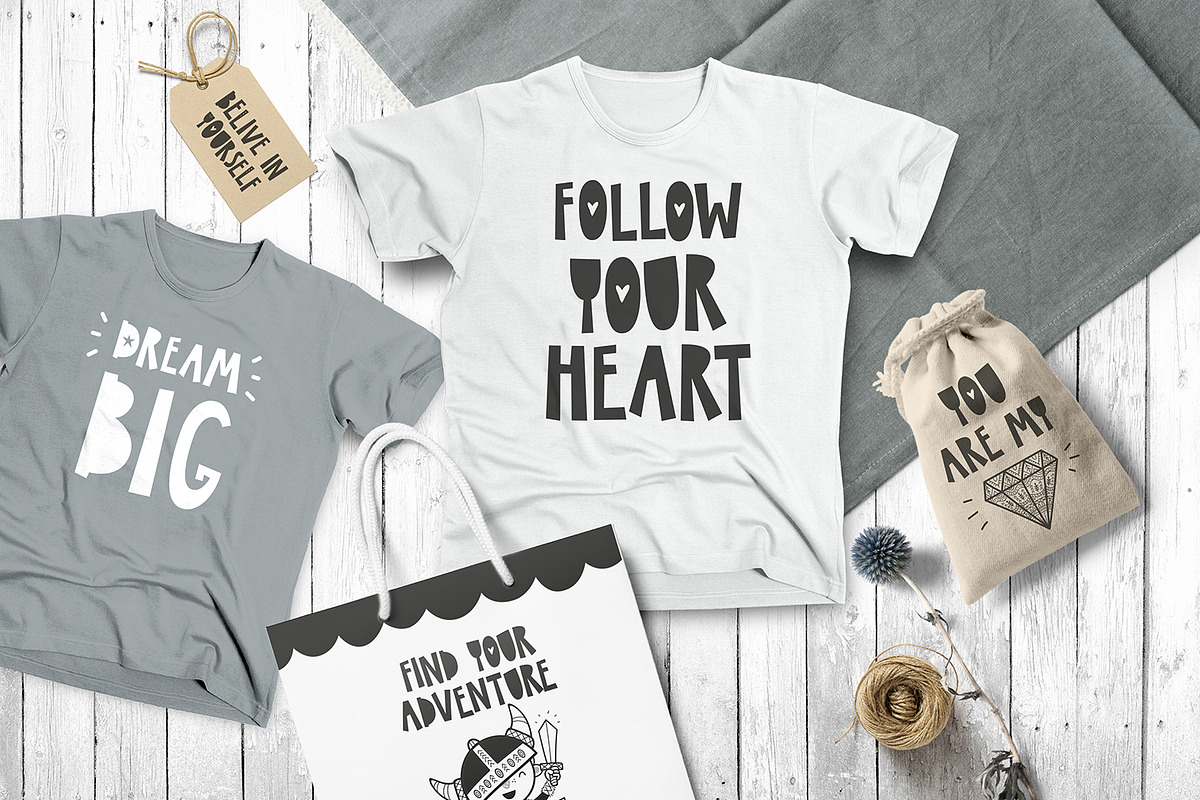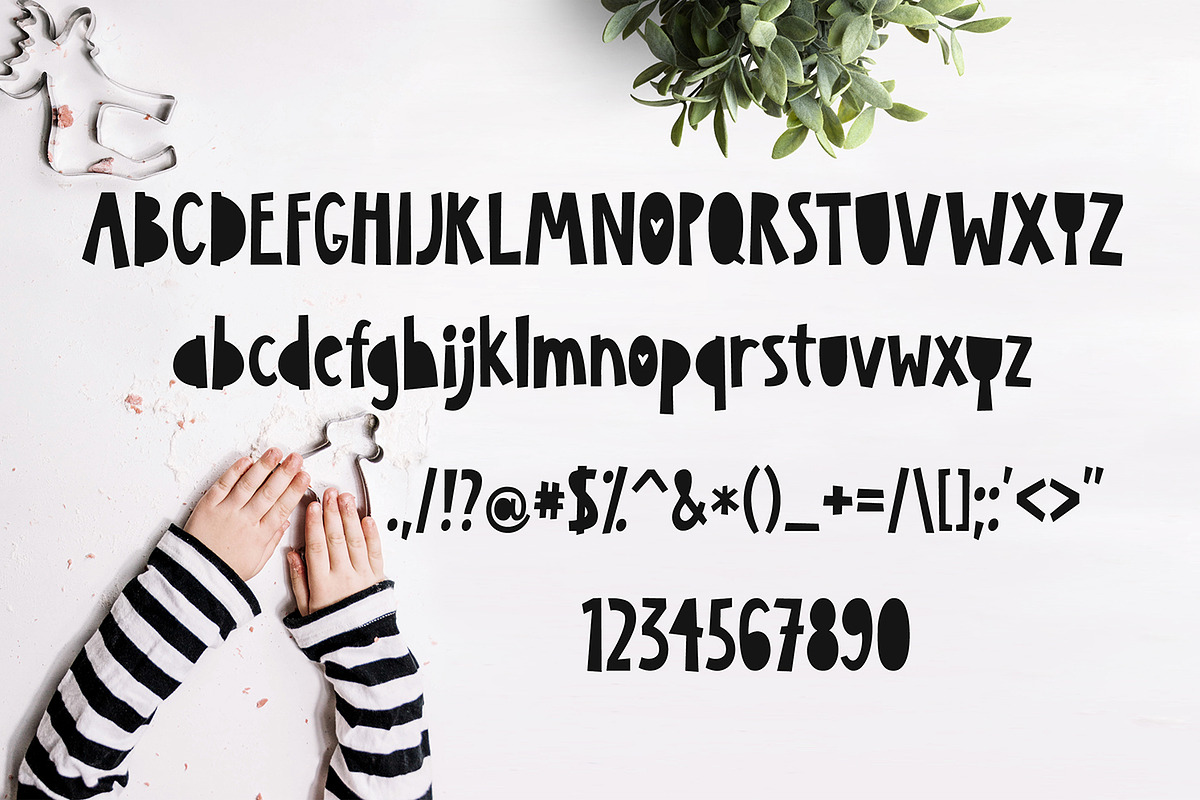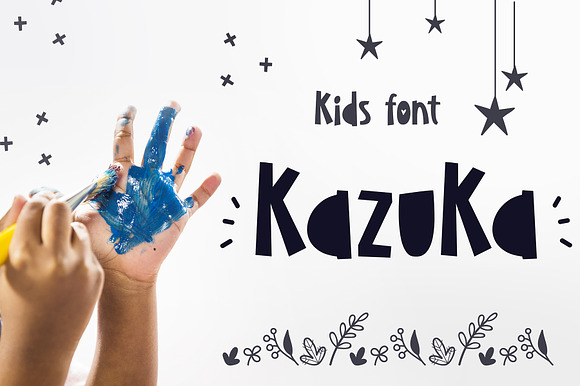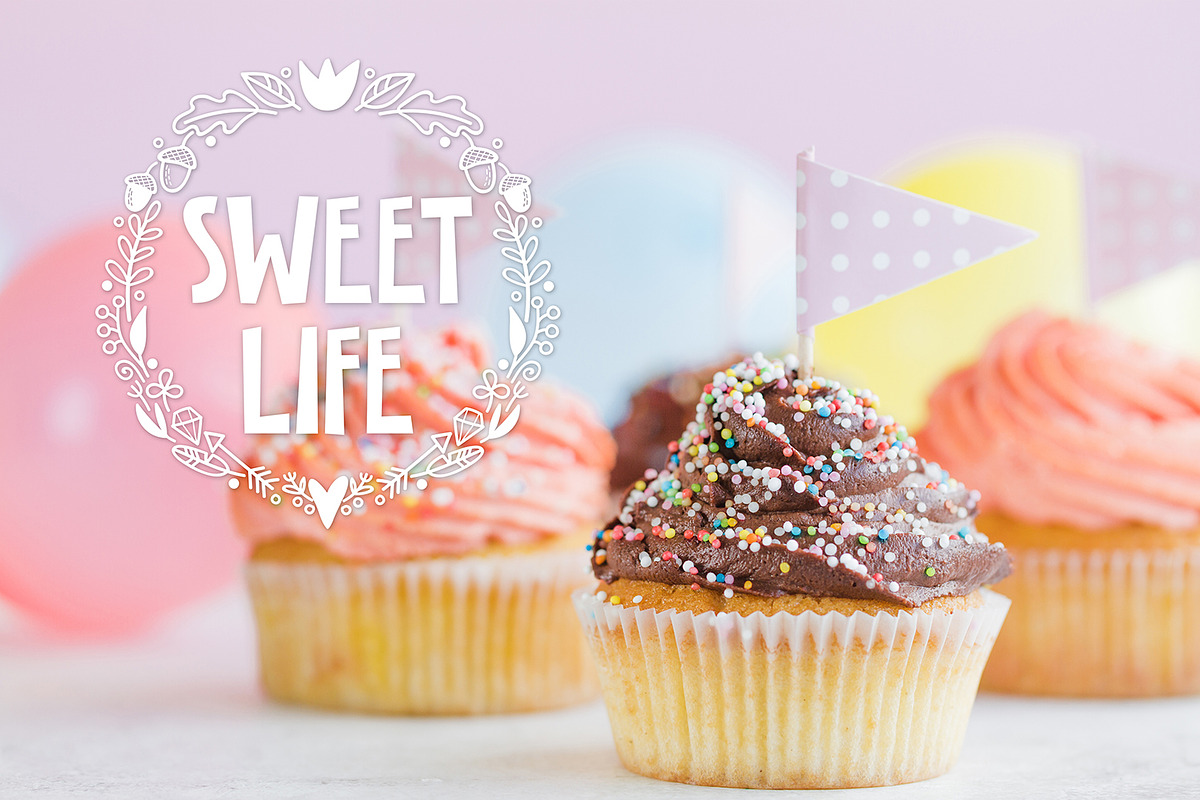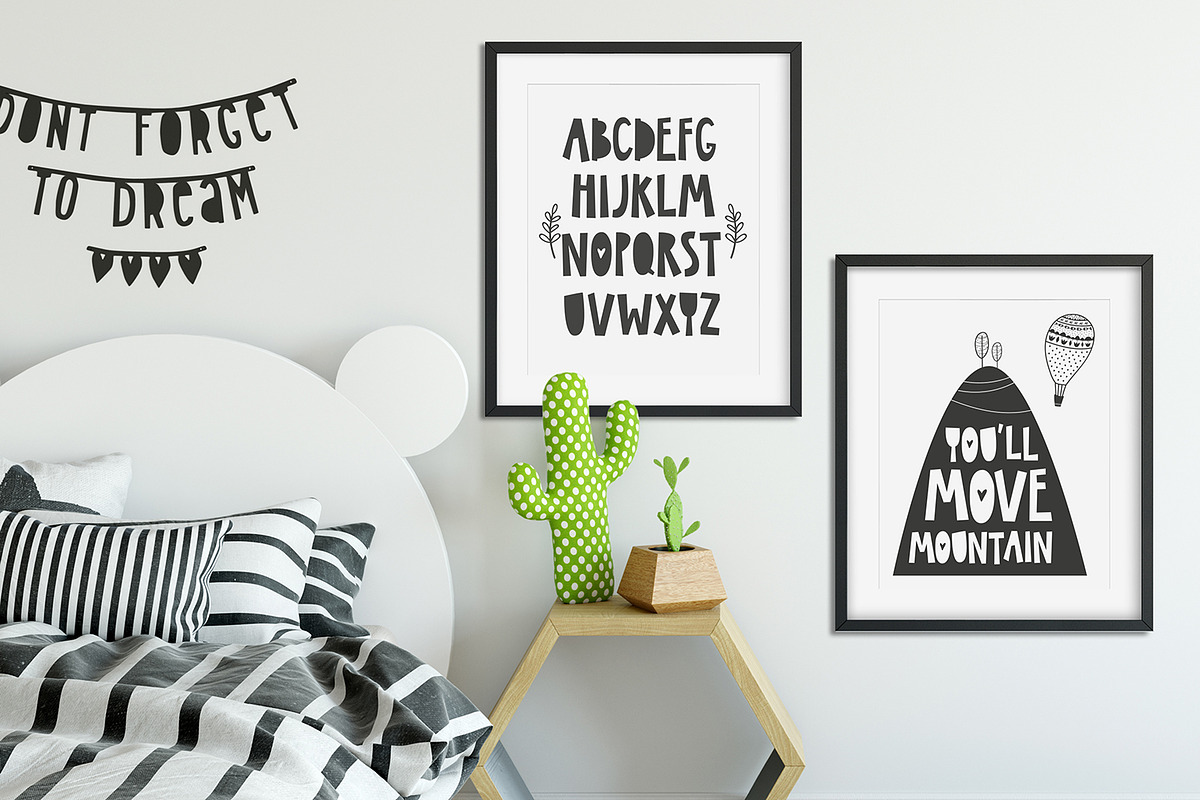
KazuKa Kids Font
This font in Scandinavian style is ideal for the design of children's printed products: posters, stickers, wall-papers, souvenirs, inscriptions on T-shirts, labels, postcards, cups, cards and games. Only your imagination can stop you :)